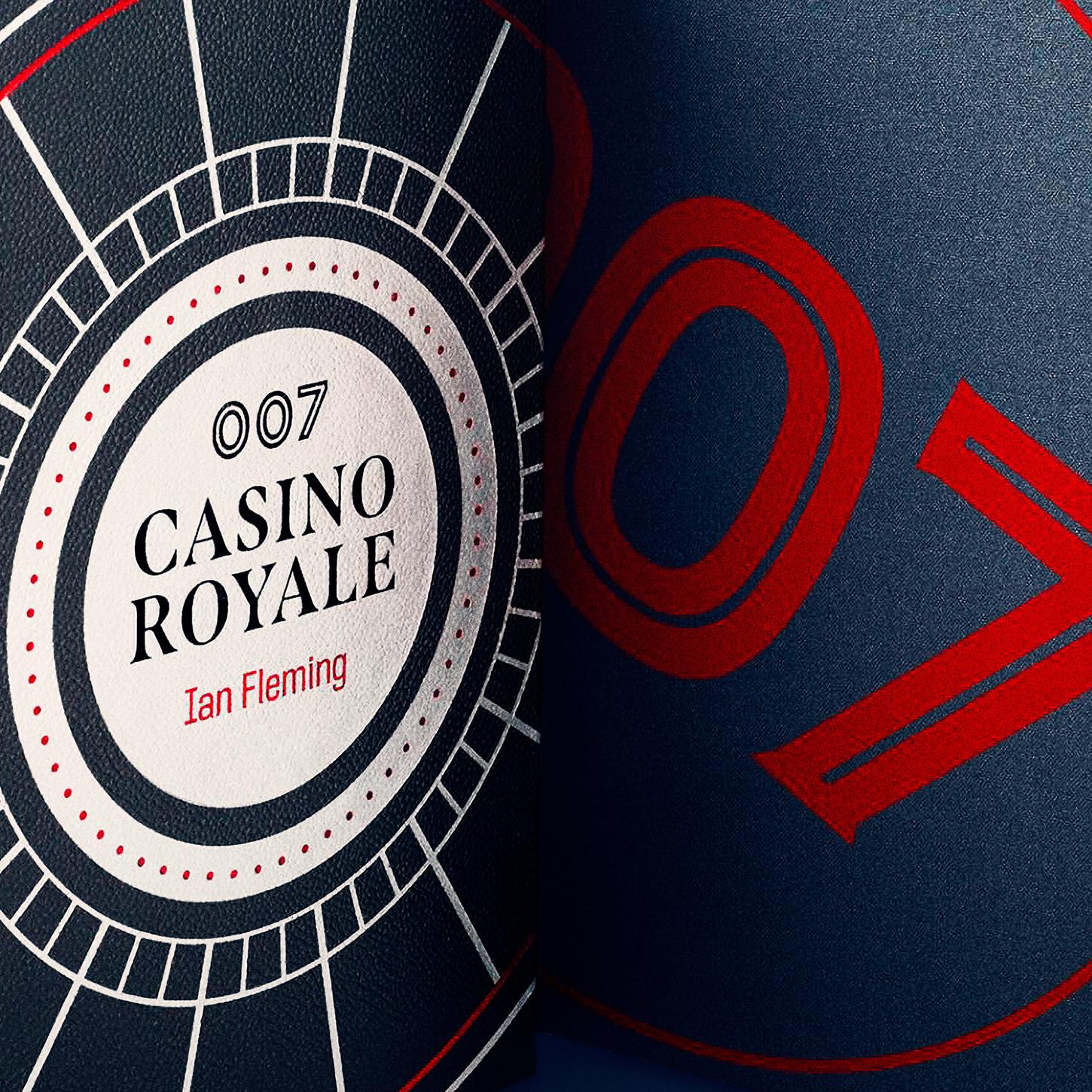
Casino Royale Bookcover
A bold new Bond edition, celebrating 70 years of 007
007: Updating a classic
Like many, I've been a big fan of the movie reboot of the Bond films, so when The Folio Society asked me to redesign a limited edition cover for the 70th anniversary, I leapt at the opportunity.
We chose a strikingly simple graphic composition for the leather bound cover, resembling a roulette wheel. I drew a new 007 motif for use on the cover, slipcase and endpapers and set Ian Fleming's name in a set of bespoke letters I designed to match. The main title is set in my typeface Span, as are all of the headings and titles throughout the book.
Casino Royale Book Cover | Jamie Clarke Type
Casino Royale Book Flysheet | Jamie Clarke Type
Casino Royale Book set | Jamie Clarke Type
In my initial sketches, I designed a more elaborate cover containing a dozen or more little pictoral clues and referances to the first Bond story. These would all make sense after reading the novel. However, we decided a bolder, classic look would work best.
Thumbnails exploring various lock-ups of image and lettering.
Casino Royale working in progress | Jamie Clarke Type
Casino Royale book cover type, lettering and design by Jamie Clarke Type
Span headline font, Casino Royale | Jamie Clarke Type
Casino Royale Book Cover | Jamie Clarke Type